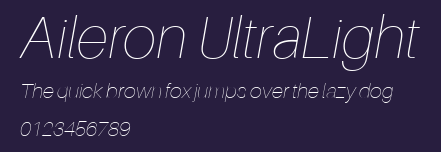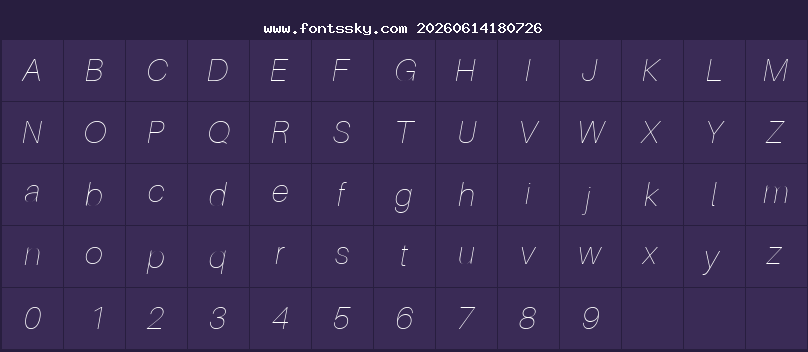
Aileron UltraLight Preview
• Font Name: Aileron UltraLight
• Font ID: 1.102;UKWN;Aileron-UltraLightItalic;2080;TR4-4.0.1.5095
• Full Font Name: Aileron UltraLight Italic
• Version: Version 1.102;PS 001.102;hotconv 1.0.70;makeotf.lib2.5.58329
• PostScript Name: Aileron-UltraLightItalic
• Character Count: 339
• Designer: Sora Sagano
• Manufacturer: Sora Sagano
About Aileron UltraLight.ttf
Aileron UltraLight.ttf is a modern, elegant sans-serif font designed for ultimate readability and visual harmony. Perfect for branding, headlines, web design, and print materials.